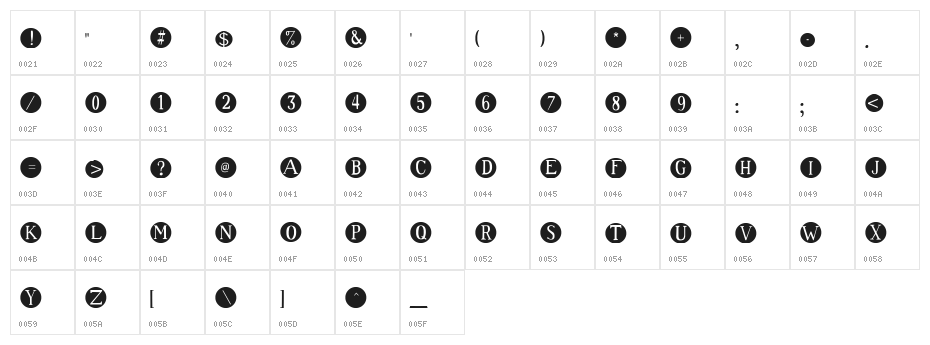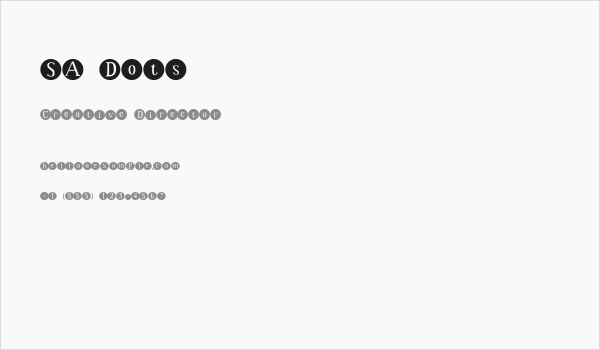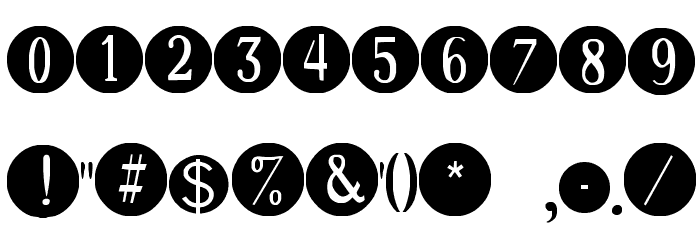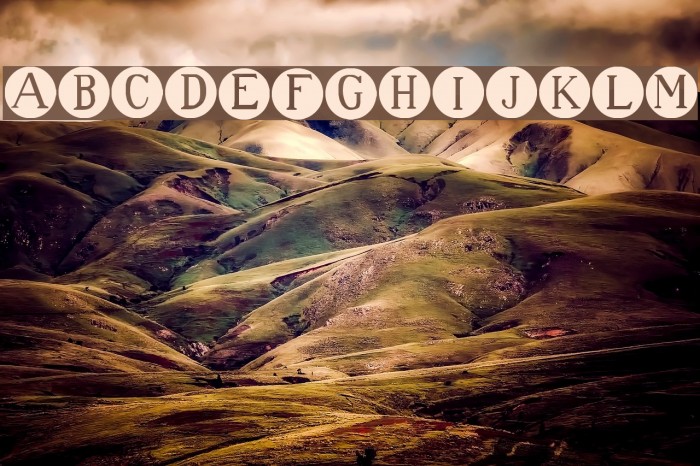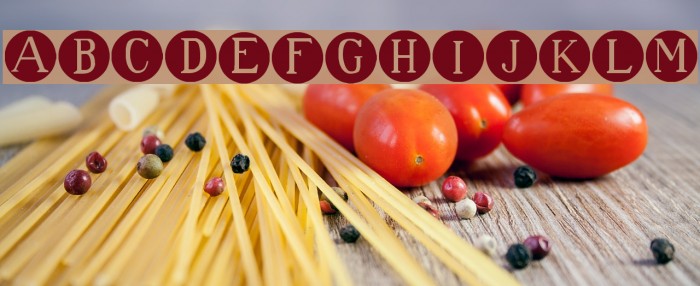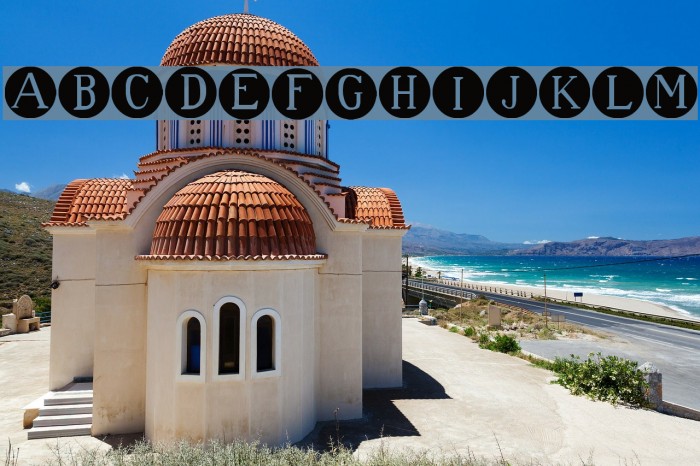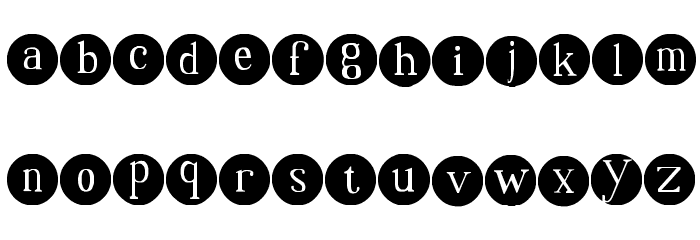
SA Dots Font
SA Dots Description
This font features a unique design where each character is enclosed within a solid circular shape, creating a bold and distinctive appearance. The letters are serif, adding a touch of classic elegance to the modern circular design. The contrast between the thick circular background and the thinner, more refined letterforms creates a striking visual effect. This font is highly decorative and stands out due to its unconventional presentation, making it ideal for projects that require a strong visual impact.
| Use Case | Logos, Headlines, Posters |
| Proposed Projects | Ideal for logos, posters, and branding materials that require a bold and distinctive look. |